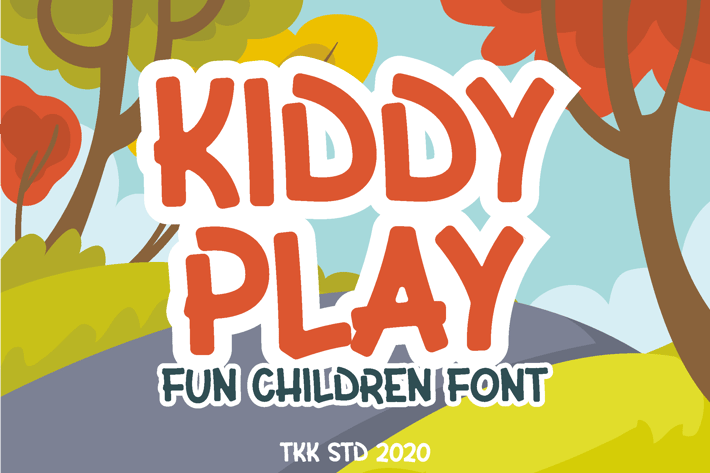
Kiddy Play - Kids Gaming font
Kiddy Play - All Caps Fun Children Font
Kiddy Play is a vibrant kids font full of personality, crafted to bring a sense of adventure, joy, and energy to any child-focused design. With its thick strokes, playful letterforms, and bouncy style, this font commands attention while remaining soft and welcoming. From story apps to classroom visuals, Kiddy Play is the perfect choice when you want your message to pop with positivity.
Created for Designers, Educators & Creators Who Love Joyful Vibes
Kiddy Play shines in environments where fun and creativity take center stage. Whether you’re building a mobile game interface, designing birthday invites, or crafting educational tools, this font helps you connect with kids and parents alike. Its approachable design makes it ideal for toy brands, children’s apparel, YouTube thumbnails, or even board game packaging.
Key Features :
Bold, Chunky Shapes – Instantly grabs attention and stays highly legible
Lively Character Design – Evokes imagination, joy, and childlike curiosity
Versatile Use Case – Perfect for gaming UI, cartoons, T-shirts, school projects
Easy to Read – Designed with clear spacing and balance for young readers
* Emotionally Expressive – Evokes fun, family bonding, and creativity
Make Every Project a Playground of Colorful Creativity
Whether you're designing a storybook, a mobile game title screen, or a family event poster, Kiddy Play is your cheerful companion. It's playful, punchy, and packed with charm—everything a great kids font should be!